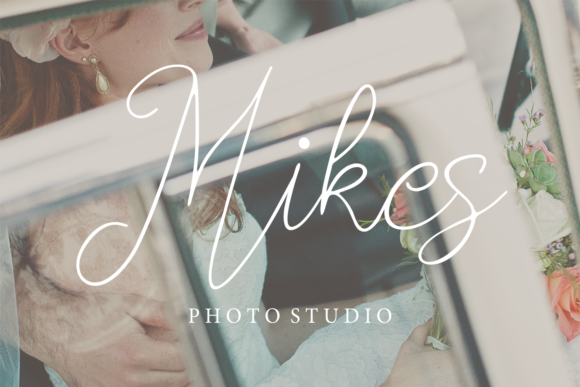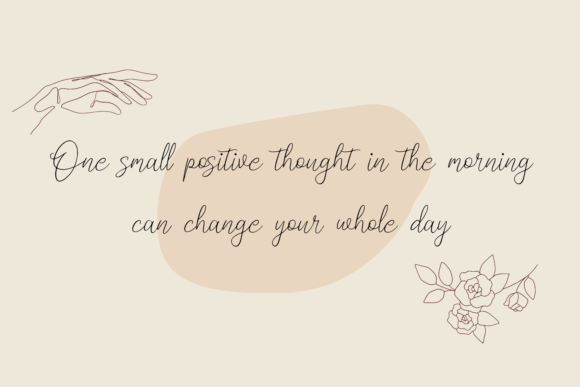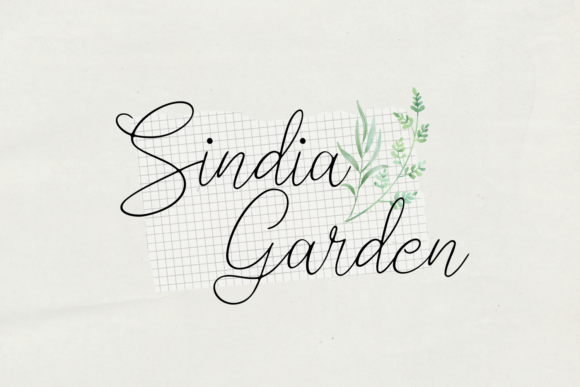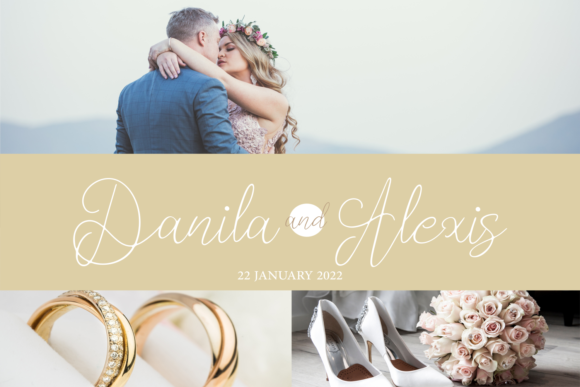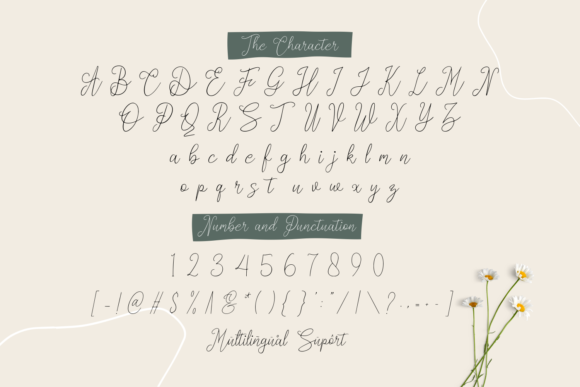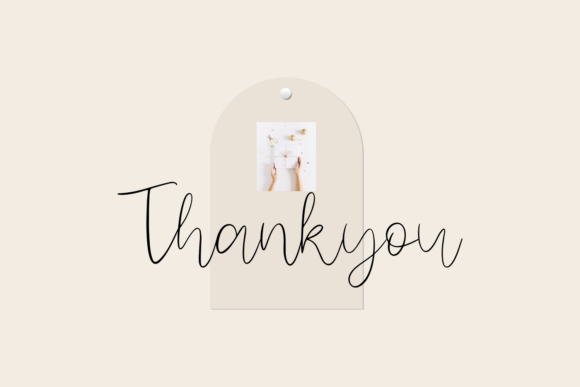
The Perfect Touch: Unveiling the Cashman Font
As a designer, you’ve likely found yourself staring at a blank page, desperately searching for the perfect font to bring your creative vision to life. You’ve scrolled through countless options, but none seem to capture the essence of your design. That’s when it hits you – the perfect font is out there, waiting to be discovered.
Enter the Cashman Font, a sweet and delicate handwritten font that exudes romance and personality. This dainty font is perfect for writing wedding invitations, cards, or any design that requires a touch of whimsy and charm. Whether you’re a seasoned designer or a creative enthusiast, the Cashman Font is an invaluable addition to your toolkit.
Cashman Font Key Features
- Unique Characteristics: The Cashman Font features a unique blend of modern and vintage elements, with a distinctive aesthetic that is both elegant and eye-catching.
- Script and Language Support: The font supports a wide range of languages, including Latin, Greek, and Cyrillic scripts, making it a versatile choice for global branding and design applications.
- Font Style: The Cashman Font is available in both regular and bold weights, providing designers with flexibility to create a range of visual effects and emphasis.
Cashman Font Review
I recently had the chance to work with the Cashman font, and I must say it’s an interesting choice. Let’s dive into what I liked and what I didn’t.
- ✨ Unique style: Cashman font has a distinctive, hand-drawn feel that sets it apart from more traditional fonts.
- ✨ Playful vibe: It’s perfect for projects that need a lighthearted, carefree tone.
- ✨ Good for headings: The font works well for headings and titles, adding a touch of whimsy to your design.
- ⚠️ Limited legibility: The font’s unique style can make it difficult to read at smaller font sizes or in long blocks of text.
- ⚠️ Not suitable for body text: Due to its playful nature, Cashman font may not be the best choice for large amounts of body text.
Overall, I think Cashman font is a great addition to any designer’s toolkit, but it’s essential to use it judiciously. When paired with the right content and used in moderation, it can add a delightful touch to your design. However, it’s not a font for every occasion, and its limitations should be taken into account.
Cashman Font Practical Application Guide
Getting the Most Out of Cashman Font
To get the most out of Cashman Font, try the following tips:
- Use Cashman Font for headings and titles to create a bold, eye-catching effect.
- Pair Cashman Font with other sans-serif fonts for a clean and modern look.
- Experiment with different font sizes and colors to create visual hierarchy and emphasis.
Cashman Font is commonly used for:
- Brochures and flyers.
- Web design and digital marketing.
Alternatives to Cashman Font
Pacifico is a beautiful, elegant script font perfect for creating a luxurious and sophisticated look. It is ideal for use in wedding invitations, fashion magazines, and high-end branding. Pacifico has a more refined and cursive feel compared to Cashman Font, which makes it a great choice for projects that require a touch of class.
Great Vibes is a modern script font with a relaxed and casual feel. It is perfect for use in food and drink branding, social media, and advertising campaigns. Great Vibes has a more playful and laid-back vibe compared to Cashman Font, making it a great choice for projects that require a fun and approachable tone.
Alex Brush is a beautiful, hand-drawn script font with a feminine and elegant feel. It is ideal for use in fashion, beauty, and lifestyle branding. Alex Brush has a more delicate and refined feel compared to Cashman Font, making it a great choice for projects that require a touch of sophistication and elegance.